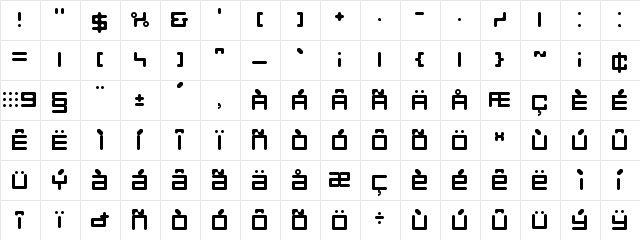
Nine Network logo font v2 Regular
Design Context for Nine Network logo font v2 Typeface
Nine Network logo font v2 takes a measured approach to typography — its balanced proportions and neutral character make it a reliable workhorse for both digital and print work.